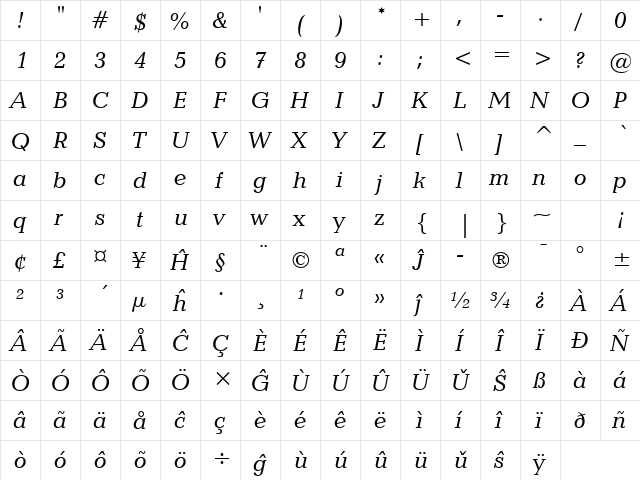
Candida Eo Italic
Design Context for Candida Eo Typeface
Candida Eo offers clean, dependable letterforms without strong stylistic allegiance, making it a practical choice for designers who need flexibility. Its italic angle brings a sense of urgency and motion to the letterforms.
Pro Tip: Use Candida Eo for emphasis, pull quotes, and subheadings where its slanted energy can add rhythm to the layout.